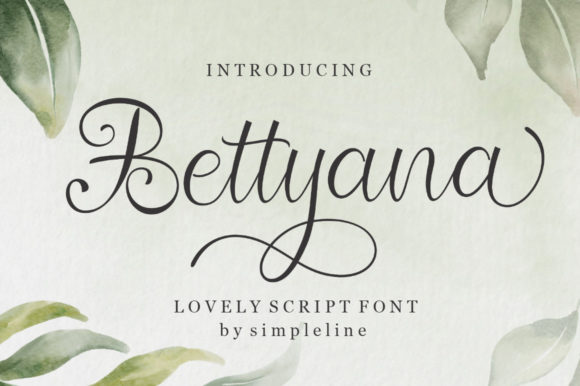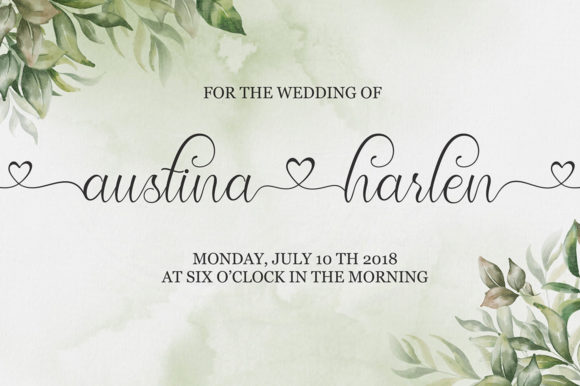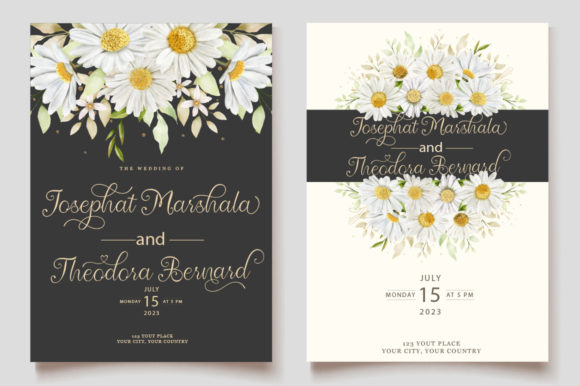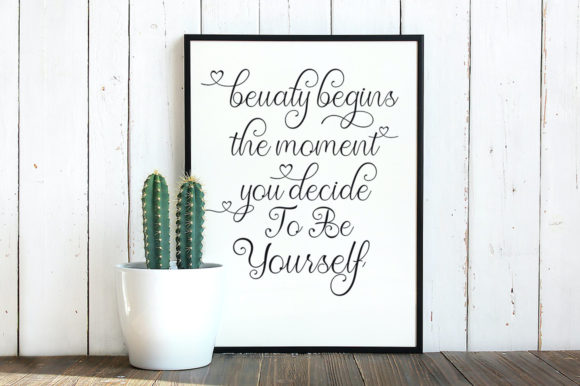
About Bettyana Script Font
Bettyana Script is a romantic and timeless handwritten font. It is the best choice for creating eye catching logos, branding and quotes. This font is PUA encoded which means you can access all of the glyphs and swashes with ease!